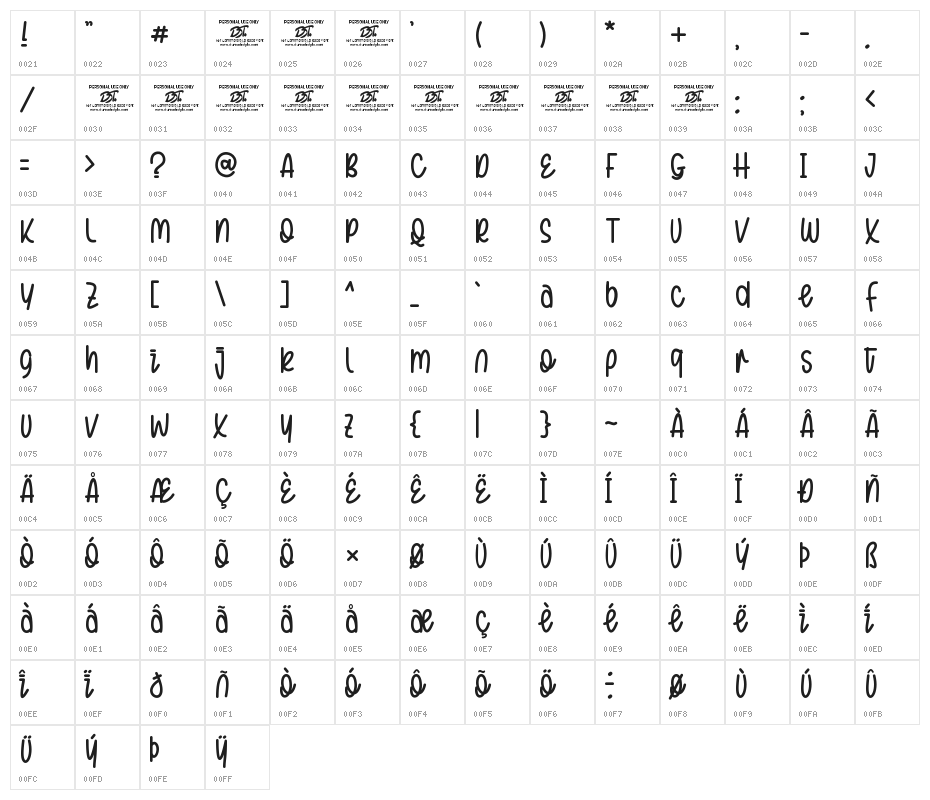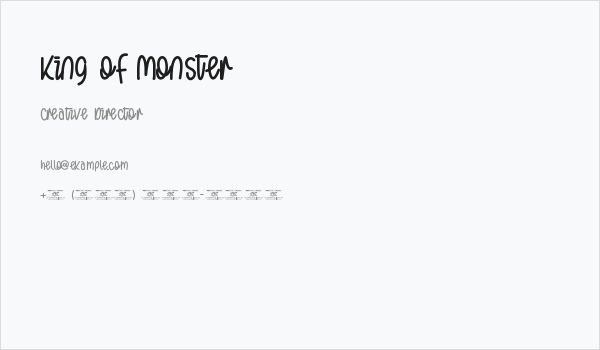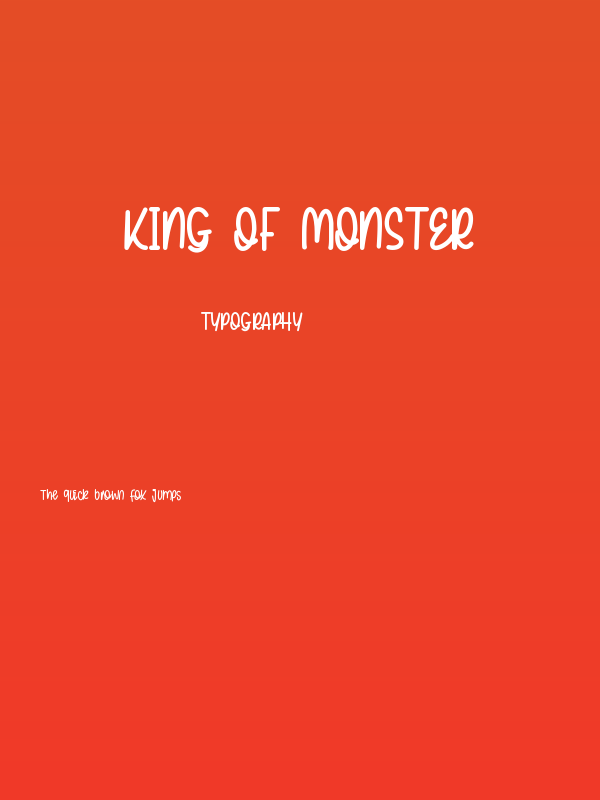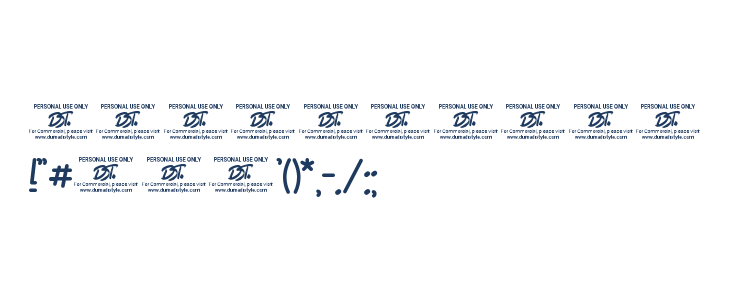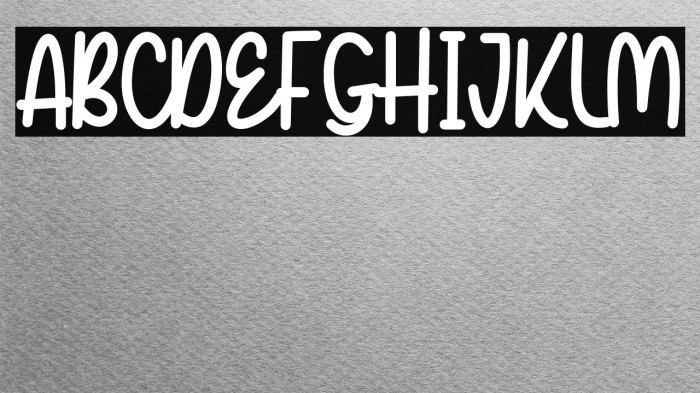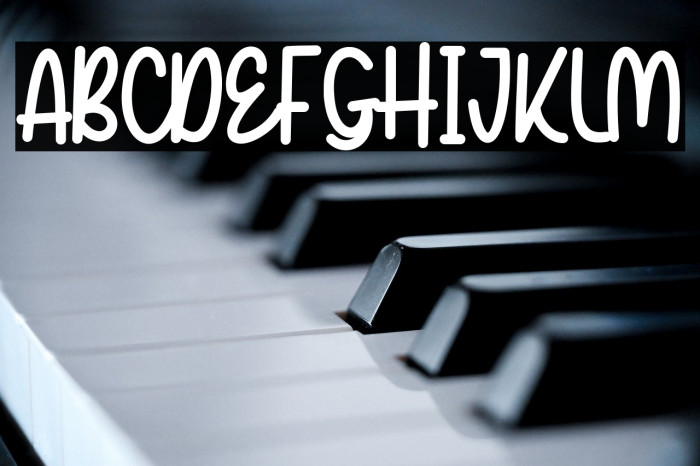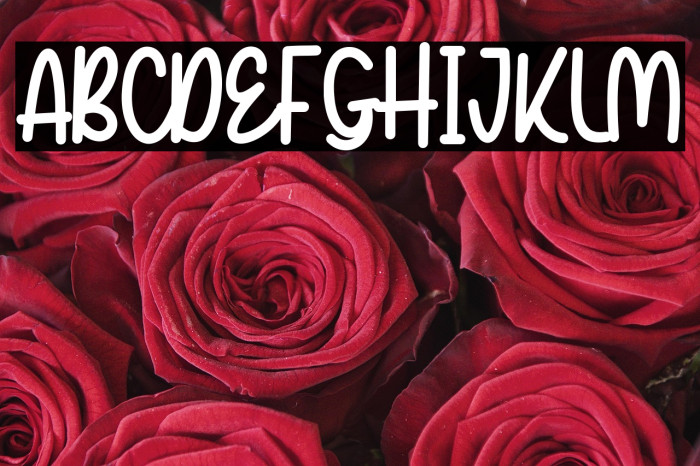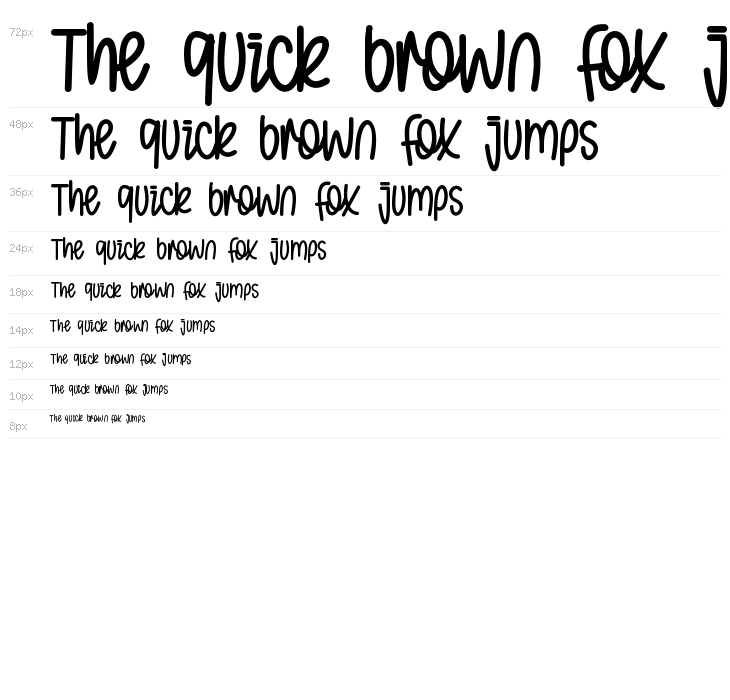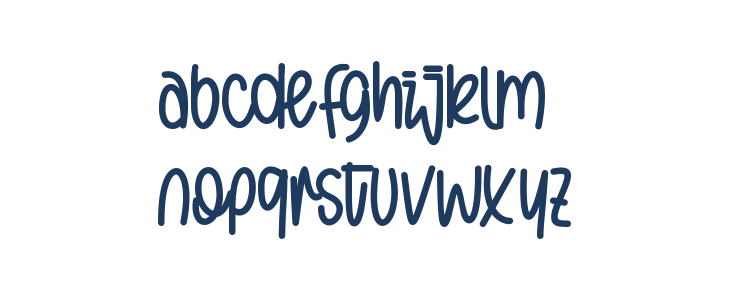
King of Monster Font
King of Monster Description
This font features a playful and energetic script style with a handwritten appearance. The characters are bold and rounded, giving it a friendly and approachable look. The uppercase and lowercase letters maintain a consistent flow, with some letters exhibiting unique loops and curves that add to its charm. The numbers and special characters are designed to match the overall style, ensuring cohesion throughout. This font is ideal for projects that require a casual and lively touch, such as invitations, posters, and branding materials.
| Overall Style | Playful, Casual |
| Proposed Projects | Ideal for invitations, posters, branding, and any project needing a lively, casual touch. |